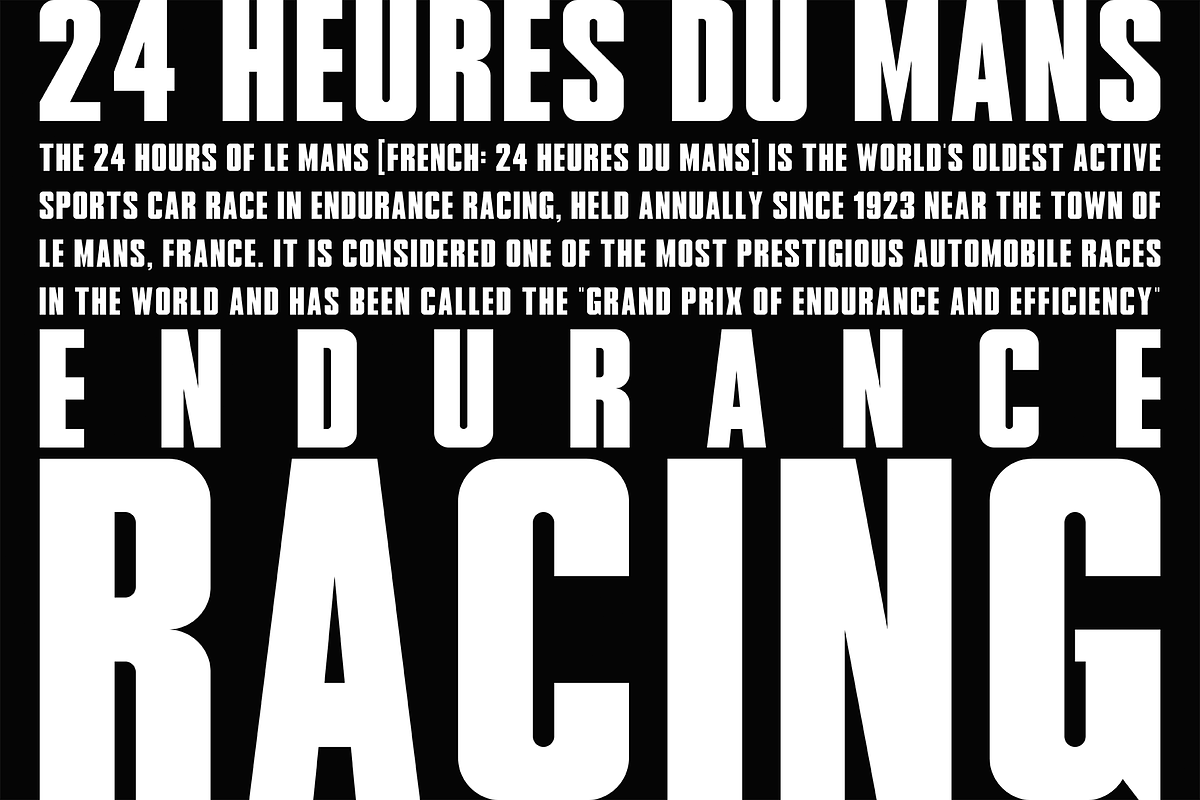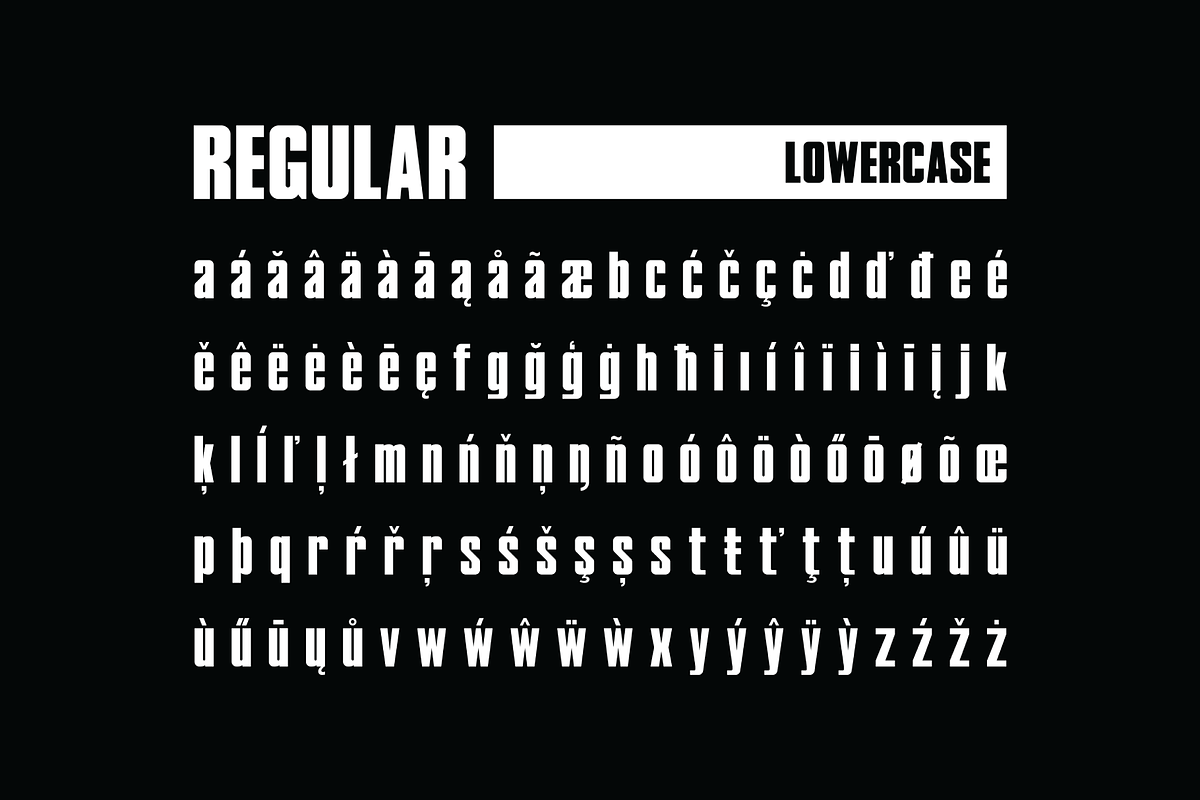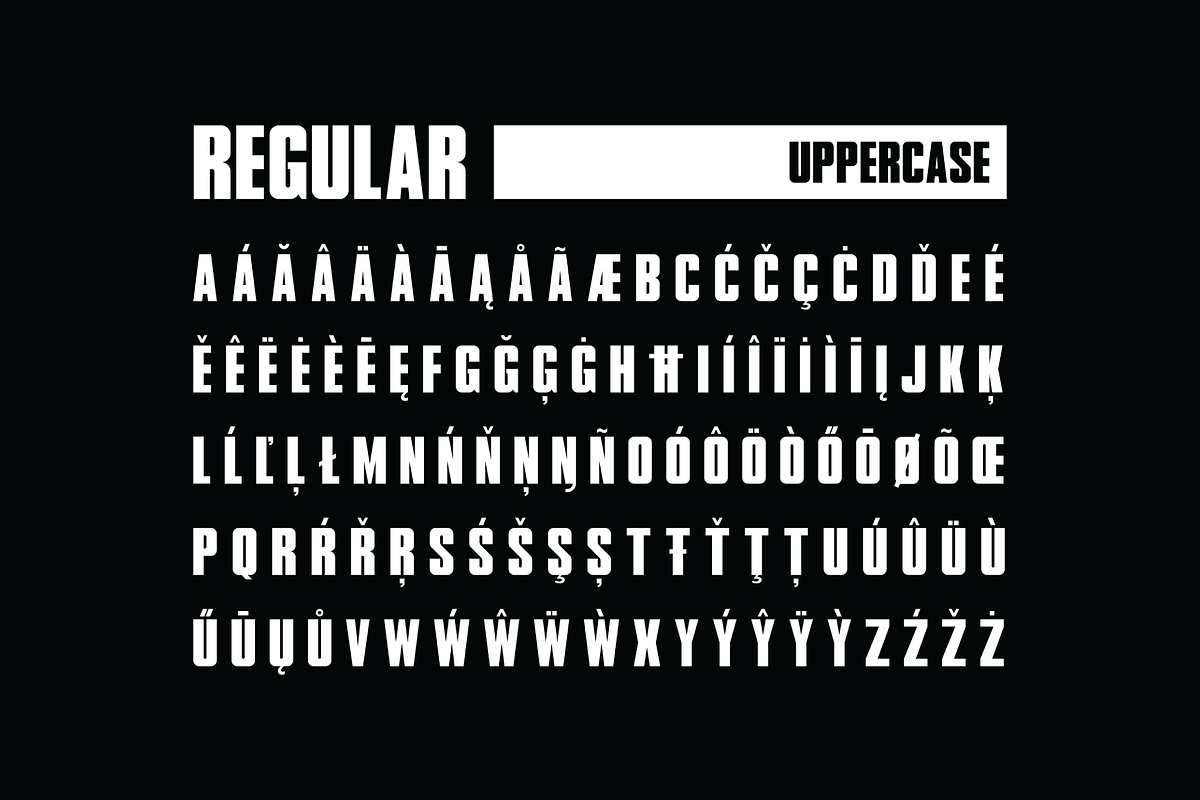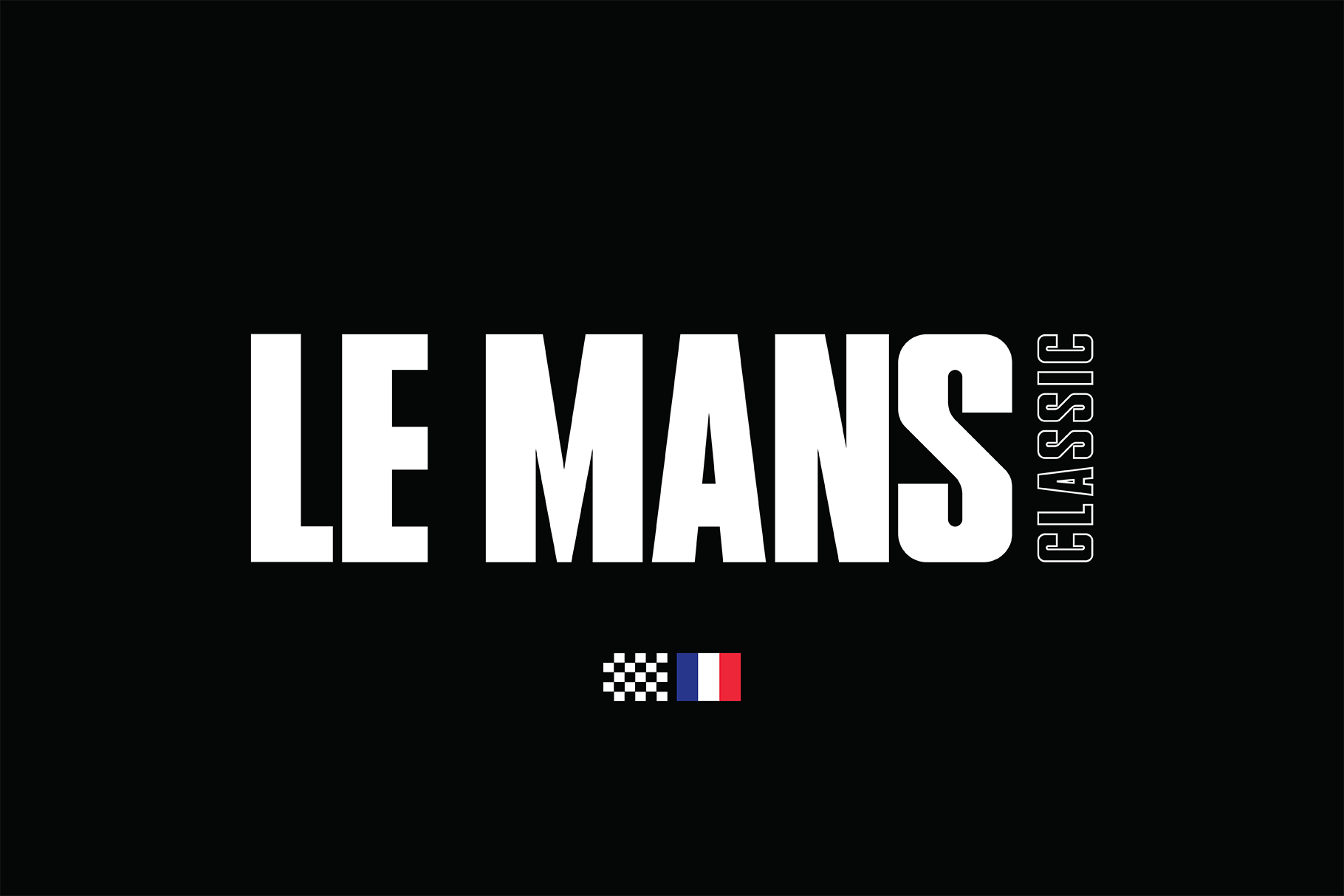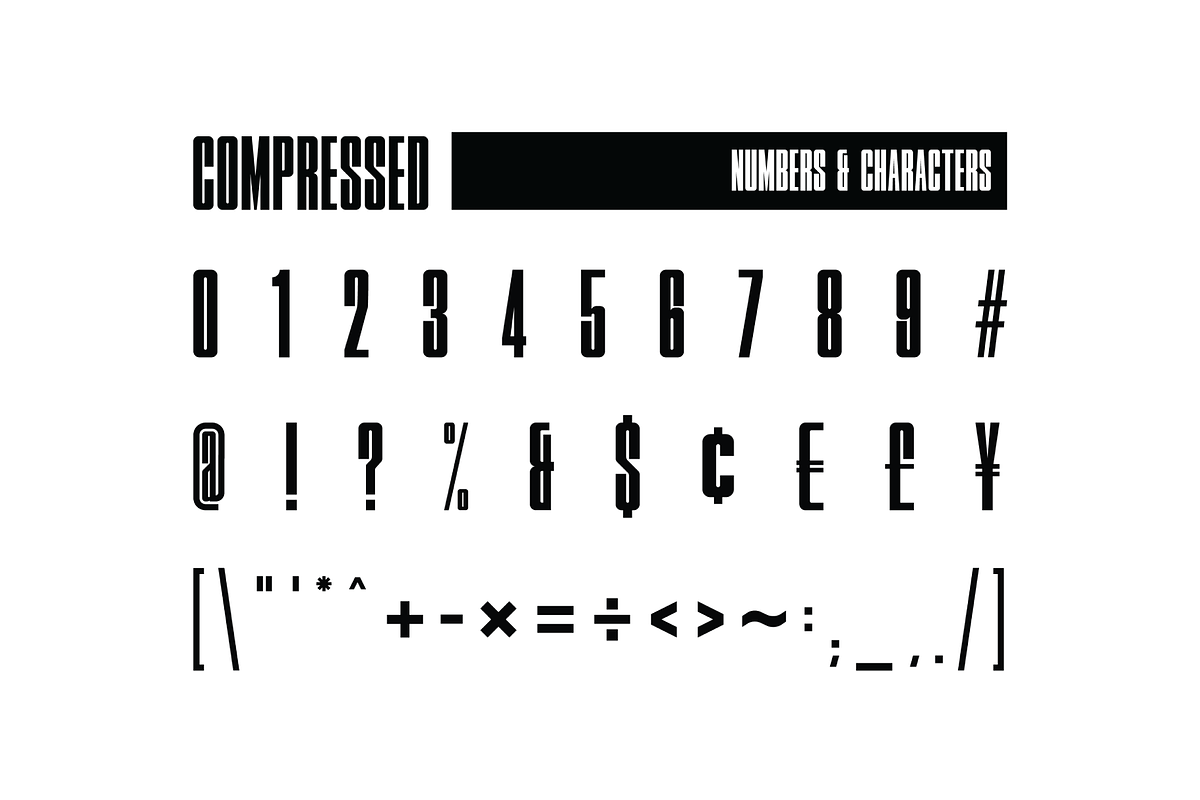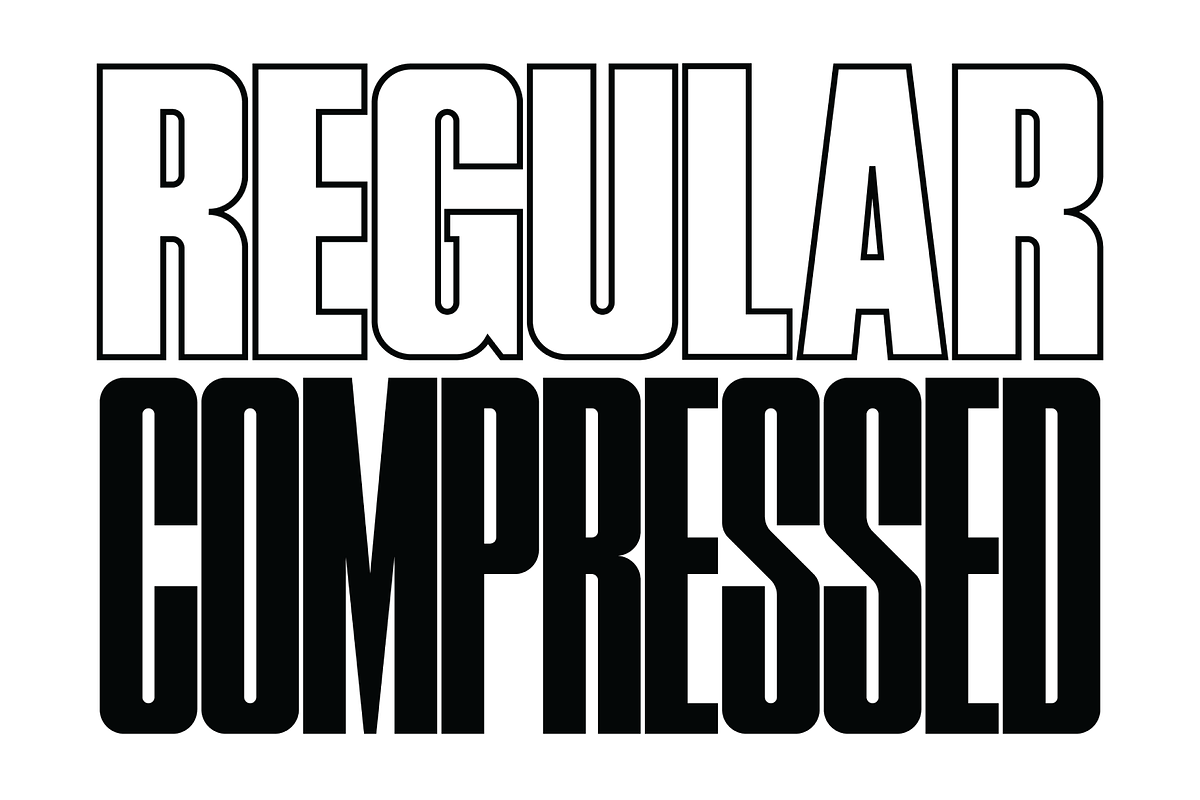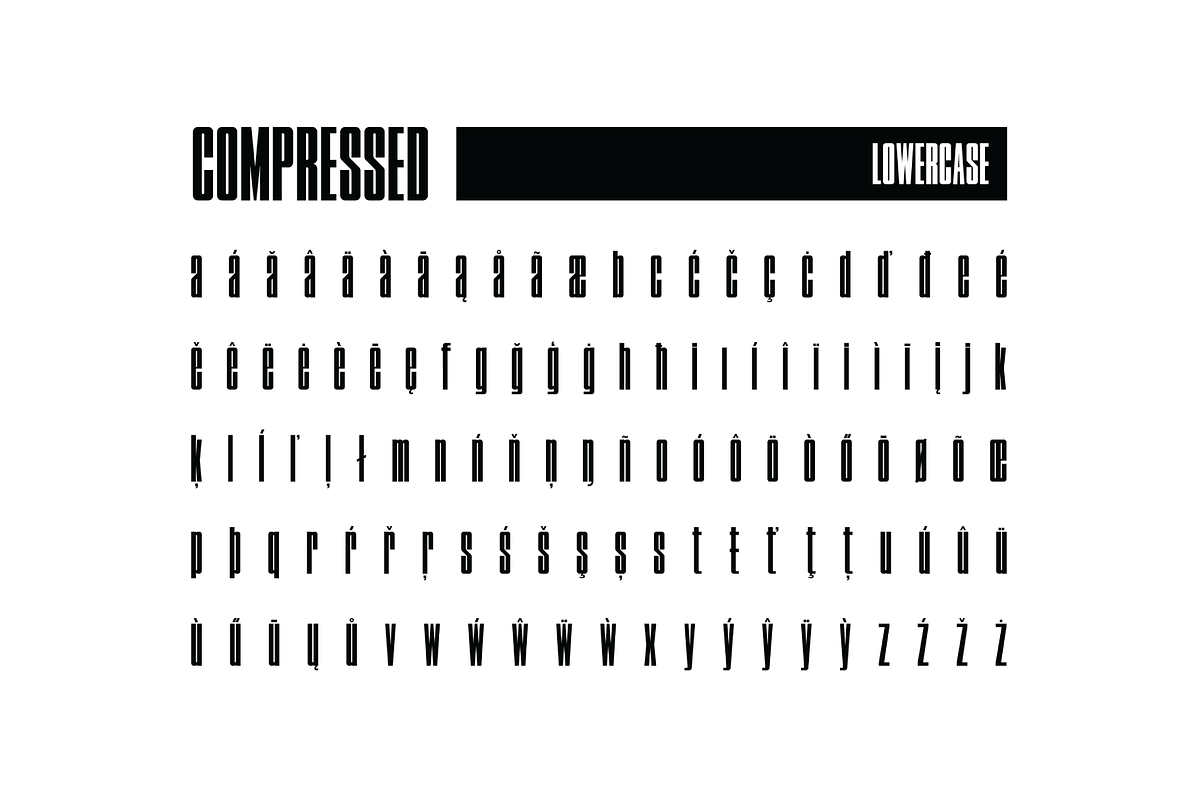
LE MANS - CLASSIC Font
Le Mans - Classic is a font inspired by vintage motorsport racing. In particular, advertising posters from the 70's. This time period was important as it showcased not only the cars that changed but also the illustrative styles & typography.
- Offered in 2 Styles - Regular & Compressed
- Extensive Language support
- Specialised Kerning on all character combinations